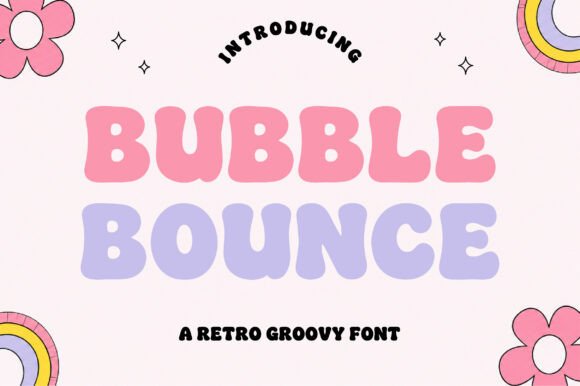
Bubble Bounce: A Groovy Retro Font for Makers
I remember the exact moment I knew Bubble Bounce would earn a permanent spot in my font collection. I was sitting at my worktable with a fresh batch of hand-poured soy candles, testing label designs for a spring collection. The scent was honeysuckle and wildflower, and I needed words that felt just as soft and cheerful. The second I typed the candle name in those rounded, bouncy letters, the whole label came alive. It was like the jar itself started smiling.
Bubble Bounce is a playful retro groovy font built around soft rounded curves and bold bubbly shapes. It carries a cheerful vintage energy that feels lifted straight from a 1970s roller rink or a sun-faded soda shop sign. But here is the beautiful part. That nostalgic warmth does not lock you into one era. It translates effortlessly into modern handmade aesthetics, whether you are designing stickers, packaging greeting cards, or building a cohesive brand identity for your small shop.
What struck me first was how the letterforms hold their personality without becoming unreadable. So many bouncy display fonts sacrifice clarity for charm, but Bubble Bounce walks that line with surprising grace. The strokes are thick enough to feel substantial on a product label, yet the inner spaces stay open and breathable. That matters when you are printing on textured kraft paper or weeding tiny vinyl lettering for a mug design at eleven o'clock at night.
First Impressions on Real Products
After that candle label test, I started pulling out every blank surface I could find. A tote bag got pressed with a short phrase in coral pink. A set of sticker sheets came together with playful affirmations. I even mocked up a wedding welcome sign using the font for the couple's names, and the soft rounded forms gave the whole board an approachable elegance that felt genuine rather than overly formal. That is the quiet magic of this typeface. It makes things feel intentional without feeling stiff.
For printable creators, Bubble Bounce opens up a world of possibilities. Imagine a set of art prints with warm, encouraging phrases rendered in those pillowy letters. Or planner divider pages where the section headers feel like a gentle nudge rather than a rigid label. The font carries a kind of emotional softness that resonates with buyers browsing digital downloads at midnight, looking for something that feels like a hug for their walls or their binders.
Where the Font Truly Shines
This is a display font through and through, and it knows exactly what it wants to do. Short phrases, product names, headlines, greeting card sentiments, logo wordmarks, decorative lettering on packaging, those are the territories where Bubble Bounce absolutely thrives. I would not recommend setting an entire product description or a long-form invitation body in it. The rounded forms that make it so endearing at large sizes can become visually tiring when stacked in lengthy paragraphs. But that is not a limitation. It is a design decision that lets the font do what it does best.
Think about the surfaces where a cheerful vintage display typeface makes practical sense. Candle labels with scent names like Vanilla Sky or Lemon Cream. Birthday invitations where the age number takes center stage in big bubbly digits. Farmhouse-style signs with warm welcome messages. Holiday gift tags with names written in cheerful rounded letters. Boutique packaging where the brand name curves across the top of a kraft box. Digital template previews where the title needs to grab attention in a crowded marketplace listing.
Working with Cutting Machines and Physical Materials
If you use a Cricut or Silhouette machine, you already know the anxiety of selecting a font for a vinyl project. Intricate serifs can snag. Overly thin strokes can tear during weeding. Bubble Bounce sidesteps many of these headaches because its shapes are inherently sturdy. The rounded terminals and consistent stroke weight make it surprisingly forgiving on adhesive vinyl, heat transfer vinyl, and even paper stencils.
I tested a small sticker sheet design with phrases under two inches wide, and the letterforms held their integrity beautifully. At very tiny sizes, say below half an inch, you will want to do a test cut. The internal counters on letters like a and e can close up if your blade pressure is too high or your material is particularly thick. But for standard sticker sizes, product labels, and t-shirt lettering, the font performs reliably. That reliability matters when you are producing items to sell and cannot afford wasted material on every batch.
When preparing listing images for your online shop, Bubble Bounce also proves its worth. Mockup previews come together faster when the typeface carries enough personality to do the visual heavy lifting. You do not need elaborate backgrounds or complex compositions when the words themselves feel like a design element. A simple phrase on a clean mockup, rendered in those bubbly retro curves, often communicates product value more effectively than an overwrought layout.
Building a Cohesive Brand with a Signature Typeface
Whether you are designing printable wall art, crafting wedding invitations, pressing tote bags, cutting vinyl decals, or building a brand identity from scratch, the right typeface transforms ordinary words into a visual experience. Bubble Bounce does exactly that with its soft rounded curves, bold bubbly shapes, and unmistakable vintage soul. It is a creative font that understands the assignment. It shows up, brings the warmth, and lets the maker focus on what matters most: making something worth sharing.